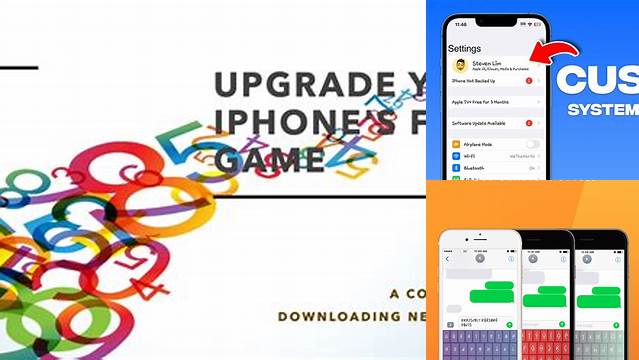
Cool IPhone Fonts: A Comprehensive Guide To System Typography
Introduction: Diving into the World of iPhone System Fonts
Hey guys! Ever wondered about those cool system fonts that make your iPhone look so sleek and modern? The fonts on your iPhone play a huge role in the overall user experience, affecting everything from readability to the aesthetic appeal of your device. Understanding and appreciating these fonts can really enhance how you interact with your phone every day. In this comprehensive guide, we're going to dive deep into the world of iPhone system fonts, exploring everything from the default font to some hidden gems and customization options. Let's get started on this font-tastic journey!
The Importance of Typography on Your iPhone
Typography is more than just choosing pretty letters; it’s a crucial element of design that impacts how we perceive information. On your iPhone, the right font can make text easier to read, reduce eye strain, and even convey a sense of style and personality. A well-chosen iPhone system font can significantly improve readability, especially when you're dealing with large amounts of text or using your device for extended periods. Think about it: a clean, legible font helps you quickly scan emails, read articles, and navigate apps without any hassle. Beyond readability, fonts also contribute to the overall aesthetic of your device. The default iOS font, San Francisco, is designed to be both functional and visually appealing, creating a harmonious balance between form and function. However, Apple provides various accessibility options that allow you to adjust font size and weight, ensuring that users with visual impairments can customize their experience for optimal readability. This attention to detail highlights the importance of typography in creating an inclusive and user-friendly environment. Moreover, the choice of font can reflect your personal style. While you can’t change the system-wide font on a non-jailbroken iPhone, understanding the available font styles and sizes can help you tailor your display settings to suit your preferences. For instance, you can adjust the text size for individual apps or enable bold text for better visibility. By appreciating the nuances of iPhone system fonts, you can make informed decisions about your device’s display settings and ultimately enhance your user experience.
A Brief History of iPhone System Fonts
The evolution of iPhone system fonts is a fascinating journey through Apple's design philosophy. In the early days of iOS, the iPhone sported Helvetica, a classic sans-serif typeface known for its clean lines and neutrality. Helvetica was a popular choice for its versatility and readability, making it a staple in graphic design for decades. However, as display technology advanced and screen resolutions increased, Apple recognized the need for a font that was specifically designed for digital screens. In 2015, Apple introduced San Francisco as the new default system font for iOS, macOS, and other Apple platforms. San Francisco was meticulously crafted to optimize legibility on Retina displays, featuring subtle adjustments in letter spacing and character shapes that enhance clarity. The transition from Helvetica to San Francisco marked a significant shift in Apple's approach to typography, emphasizing a more modern and functional aesthetic. San Francisco is not just one font; it's a family of fonts designed to work harmoniously across different devices and screen sizes. The family includes SF Pro for general text, SF Compact for smaller screens like the Apple Watch, and SF Mono for code and technical content. This comprehensive approach ensures consistency and readability throughout the Apple ecosystem. Apple’s commitment to refining its system fonts reflects its dedication to user experience. By continuously improving typography, Apple aims to make its devices more accessible and enjoyable to use. The history of iPhone fonts is a testament to Apple's design principles, showcasing a blend of innovation, functionality, and aesthetic appeal.
The Default Font: San Francisco – A Closer Look
San Francisco, the default system font on iPhones, is a masterpiece of modern typography. This font was designed by Apple to provide optimal readability and clarity across all its devices, and it's a significant upgrade from its predecessor, Helvetica. San Francisco is a neo-grotesque sans-serif typeface, meaning it has a clean, minimalist design with uniform strokes and a focus on functionality. The font family is incredibly versatile, including different weights and styles that cater to various uses, from body text to headlines. One of the key features of San Francisco is its dynamic letter spacing, which adjusts automatically based on the text size. This ensures that text remains legible and comfortable to read, whether it's a small label on an icon or a long paragraph in an article. The design of San Francisco also takes into account the challenges of on-screen reading, with subtle adjustments to character shapes and proportions that enhance clarity and reduce eye strain. The San Francisco font family is divided into several variations, each tailored for specific purposes. SF Pro is the most common variant, used for general text in apps, menus, and system interfaces. SF Compact is designed for smaller screens, such as the Apple Watch, with a slightly narrower letterform that maximizes space. SF Mono is a monospaced variant, ideal for code editors and terminal applications, where character alignment is crucial. The meticulous design and attention to detail in San Francisco reflect Apple's commitment to user experience. By creating a font that is both functional and aesthetically pleasing, Apple has set a new standard for system fonts in the digital age. If you've ever wondered why the text on your iPhone looks so crisp and clear, San Francisco is the answer. Its thoughtful design and versatility make it a cornerstone of the iOS experience, ensuring that everything from emails to app interfaces is easy to read and visually appealing.
Key Features of San Francisco
Let's break down some of the key features of San Francisco, the default font on your iPhone. One of the standout features is its adaptability. San Francisco is designed to be incredibly versatile, working beautifully across various screen sizes and resolutions. This means that whether you're using a small iPhone SE or a larger iPhone Pro Max, the text will always appear crisp and legible. The font's dynamic letter spacing is another crucial aspect. It automatically adjusts the spacing between letters based on the text size, ensuring optimal readability. This is particularly important for on-screen reading, where eye strain can be a concern. With San Francisco, text remains comfortable to read, even during extended use. The neo-grotesque design of San Francisco is also worth noting. This style is characterized by clean, minimalist lines and a uniform stroke weight, giving the font a modern and sophisticated look. The absence of decorative flourishes makes it highly functional and easy to read, while its subtle elegance adds a touch of class to the iOS interface. San Francisco's design also incorporates specific features to enhance legibility on digital screens. The letterforms are carefully crafted to minimize ambiguity and maximize clarity, with subtle adjustments to character shapes and proportions. This attention to detail ensures that each letter is easily distinguishable, even at small sizes. Furthermore, San Francisco is a family of fonts, each tailored for specific purposes. SF Pro is the workhorse, used for general text and user interfaces. SF Compact is optimized for smaller screens, such as the Apple Watch, while SF Mono is designed for code and technical applications. This comprehensive approach ensures consistency and readability across the entire Apple ecosystem. In summary, the key features of San Francisco make it an exceptional system font for the iPhone. Its adaptability, dynamic letter spacing, neo-grotesque design, and specialized variations all contribute to a superior user experience. By understanding these features, you can appreciate the thought and effort that goes into making your iPhone's text look so good.
How San Francisco Enhances Readability and User Experience
San Francisco isn't just a pretty face; it's a powerhouse when it comes to enhancing readability and user experience on your iPhone. The font's design is meticulously crafted to ensure that text is easy to read, even on small screens and in various lighting conditions. One of the primary ways San Francisco enhances readability is through its clear and distinct letterforms. Each character is designed to be easily distinguishable from the others, minimizing the risk of misreading and reducing eye strain. This is especially important for users who spend a lot of time reading on their iPhones, whether it's emails, articles, or books. The dynamic letter spacing of San Francisco also plays a crucial role in improving readability. By automatically adjusting the space between letters based on the text size, the font ensures that text remains legible and comfortable to read. This feature is particularly beneficial for users who have visual impairments or prefer larger text sizes. Beyond readability, San Francisco also contributes to a more enjoyable user experience. The font's clean and modern design creates a sense of sophistication and elegance, making the iOS interface feel polished and refined. This aesthetic appeal can enhance the overall perception of the device and make it more pleasurable to use. The versatility of San Francisco is another factor that enhances user experience. The font family includes different weights and styles, allowing designers to create visually appealing layouts without sacrificing readability. This flexibility is crucial for app developers, who need to ensure that their interfaces are both functional and attractive. Moreover, Apple has integrated San Francisco seamlessly into the iOS ecosystem, ensuring that the font looks consistent across all apps and system interfaces. This consistency creates a sense of harmony and coherence, making the user experience feel more intuitive and seamless. In conclusion, San Francisco is a prime example of how typography can enhance readability and user experience. Its clear letterforms, dynamic letter spacing, versatile design, and seamless integration all contribute to a more enjoyable and efficient experience on your iPhone. By prioritizing readability and aesthetics, San Francisco has set a new standard for system fonts in the mobile world.
Customization Options: Adjusting Fonts for Your Needs
While you can't change the default system font on a non-jailbroken iPhone, Apple provides several customization options that allow you to adjust fonts to suit your needs. These settings are designed to improve readability and accessibility, ensuring that everyone can comfortably use their iPhone. Let's explore some of the key customization options available to you.
Adjusting Text Size for Better Readability
One of the most straightforward ways to customize fonts on your iPhone is by adjusting the text size. Apple offers a system-wide setting that allows you to make text larger or smaller, depending on your preference. This is particularly useful if you have visual impairments or simply find the default text size too small. To adjust the text size, go to Settings > Display & Brightness > Text Size. Here, you'll find a slider that you can use to increase or decrease the size of the text. The changes you make here will apply to most apps and system interfaces, ensuring a consistent experience across your device. In addition to the system-wide text size setting, Apple also provides an option to make text even larger for accessibility purposes. This feature is located in Settings > Accessibility > Display & Text Size > Larger Text. When you enable this option, you'll be able to increase the text size to an even greater extent than the standard setting allows. This can be a lifesaver for users with significant visual impairments. It's important to note that some apps may not fully support these text size adjustments. While most Apple apps and many third-party apps will adapt to the changes you make, some apps may have fixed text sizes that cannot be altered. However, the majority of apps will respect your system-wide text size settings, providing a more comfortable reading experience. Adjusting the text size is a simple but effective way to customize fonts on your iPhone. Whether you need a slight increase for better readability or a significant boost for accessibility, these settings allow you to tailor your device to your specific needs. By experimenting with different text sizes, you can find the perfect balance that makes reading on your iPhone a pleasure.
Using Bold Text for Enhanced Visibility
Another fantastic customization option on your iPhone is the ability to use bold text. Enabling bold text can significantly enhance visibility, making it easier to read text on your device, especially in bright lighting conditions or for users with visual impairments. To enable bold text, simply go to Settings > Accessibility > Display & Text Size and toggle the "Bold Text" switch to the on position. Once you've done this, all system text and text in most apps will appear in bold, making it stand out more clearly against the background. Bold text can be particularly helpful if you find the standard font weight too light or if you struggle to read text on your iPhone's screen. The increased thickness of the letters makes them more prominent and easier to focus on, reducing eye strain and improving readability. This feature is especially useful for users who read a lot of text on their iPhones, whether it's emails, articles, or books. By making the text bolder, you can create a more comfortable reading experience and reduce the likelihood of fatigue. Like the text size adjustments, the bold text setting is system-wide, meaning it will apply to most apps and system interfaces. However, some apps may have their own font settings that override this, so you may not see the bold text in every single app. Despite this, the majority of apps will respect the bold text setting, providing a consistent and enhanced reading experience across your device. Using bold text is a quick and easy way to customize fonts on your iPhone and improve visibility. If you're struggling to read text or simply want to make it more prominent, enabling bold text is a great option. It's a simple change that can have a significant impact on your overall user experience.
Exploring Other Accessibility Features Related to Fonts
Beyond adjusting text size and using bold text, your iPhone offers a range of other accessibility features related to fonts that can significantly enhance your user experience. These features are designed to cater to a variety of needs, ensuring that everyone can comfortably use their device. One notable feature is the ability to increase contrast. By increasing the contrast between text and background, you can make text more legible, especially for users with low vision. To enable this, go to Settings > Accessibility > Display & Text Size and toggle the "Increase Contrast" switch. This setting will darken the background and lighten the text, making it easier to differentiate between the two. Another useful feature is "Reduce White Point," which lowers the intensity of bright colors on the screen. This can help reduce eye strain, especially when using your iPhone in dark environments. You can find this setting in Settings > Accessibility > Display & Text Size and adjust the slider to your desired level. The "Smart Invert" and "Classic Invert" options are also worth exploring. These settings invert the colors on your screen, which can make text easier to read for some users. Smart Invert reverses the colors of the display except for images, media, and some apps that use dark color schemes. Classic Invert, on the other hand, inverts all colors on the screen. You can find these options in Settings > Accessibility > Display & Text Size > Invert Colors. For users with specific font preferences, the "Preferred Fonts" setting in some apps allows you to override the system font and choose a different typeface. While this is not a system-wide setting, it can be useful for apps that you use frequently and want to customize further. To sum it up, your iPhone is packed with accessibility features related to fonts that can help you tailor your device to your specific needs. From increasing contrast to reducing white point and inverting colors, these settings offer a wide range of options for improving readability and reducing eye strain. By exploring these features, you can create a more comfortable and enjoyable experience on your iPhone.
Conclusion: Appreciating the iPhone's Typography
In conclusion, the cool system fonts on your iPhone play a crucial role in the overall user experience. From the default San Francisco font to the customization options available, Apple has put a lot of thought into typography to ensure readability, accessibility, and aesthetic appeal. While changing the system font isn't straightforward on a non-jailbroken iPhone, understanding the features and settings that are available can help you tailor your device to your specific needs. The default font, San Francisco, is a testament to modern typography, offering a clean, versatile, and highly legible typeface that works beautifully across various screen sizes and resolutions. Its dynamic letter spacing and carefully crafted letterforms contribute to a comfortable reading experience, even during extended use. The customization options provided by Apple, such as adjusting text size and using bold text, offer additional ways to enhance readability. These settings are designed to make your iPhone more accessible and enjoyable to use, regardless of your visual preferences. While jailbreaking can enable more extensive font customization, it's essential to weigh the risks and considerations carefully. Security vulnerabilities, stability issues, and warranty voidance are all factors to keep in mind. Third-party apps offer some font alternatives within their own interfaces, providing a compromise for those who want a different font experience without jailbreaking. However, these apps don't offer system-wide font changes, so they may not be the ideal solution for everyone. Ultimately, appreciating the iPhone's typography involves understanding the thought and effort that goes into designing and selecting fonts. By exploring the available options and making informed choices, you can create a personalized and comfortable user experience on your device. Whether you stick with the default system font or experiment with customization settings, the key is to find what works best for you and enhances your enjoyment of your iPhone. So, next time you're using your iPhone, take a moment to appreciate the cool system fonts that make it all possible!